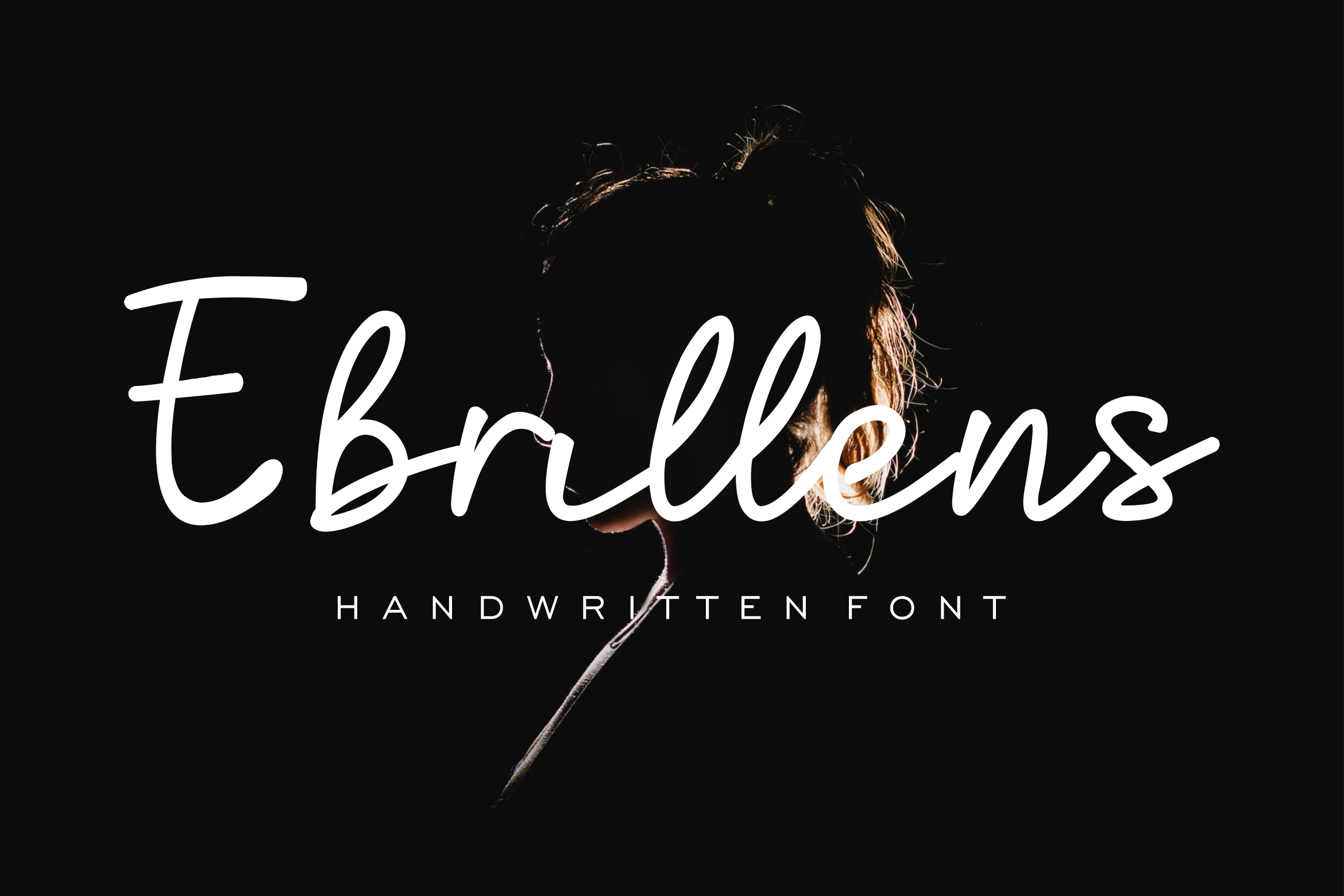
Ebrillens Handwritten Font.
– related to travel, history & culture in the present/modern way,lifestyle designs such as logos, title, magazine, and more.